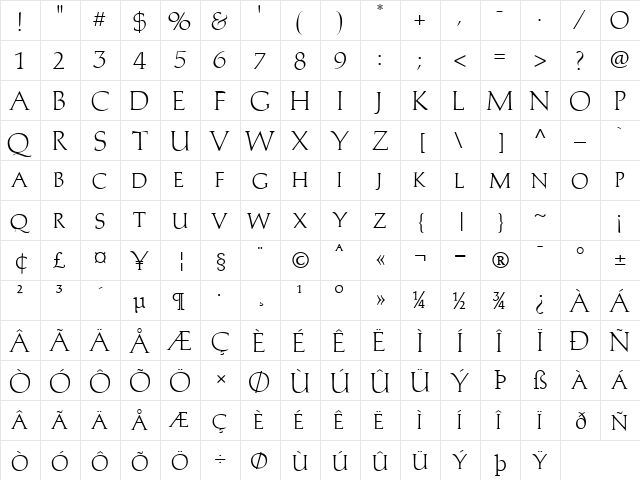
Trajans-Caps Normal
Design Context for Trajans-Caps Typeface
Trajans-Caps offers clean, dependable letterforms without strong stylistic allegiance, making it a practical choice for designers who need flexibility.